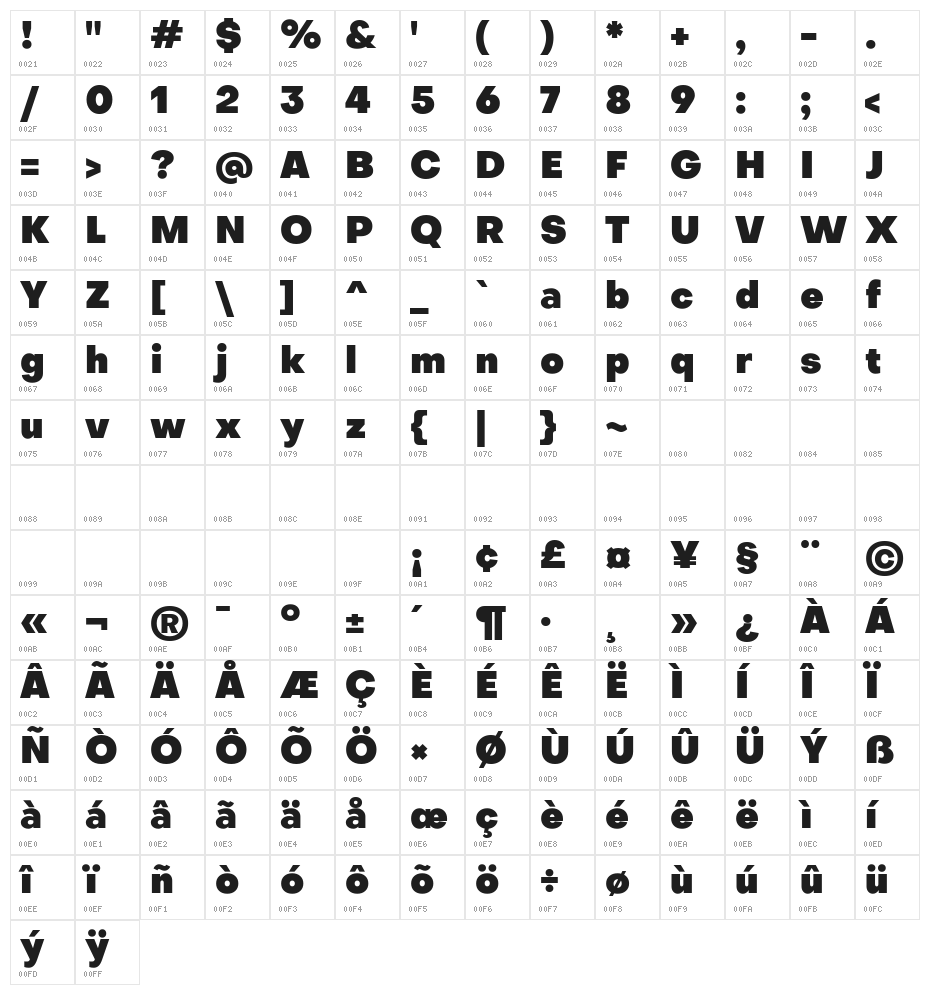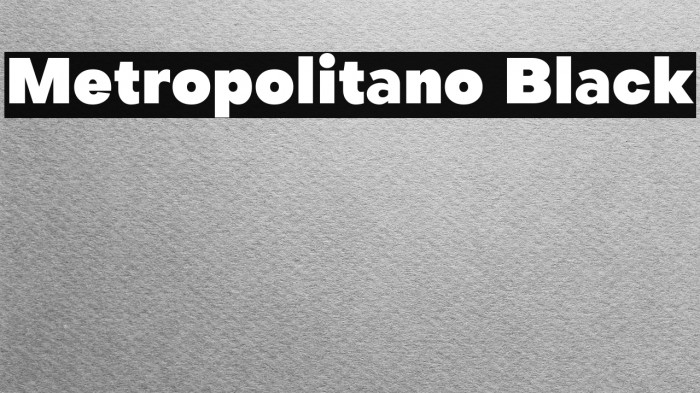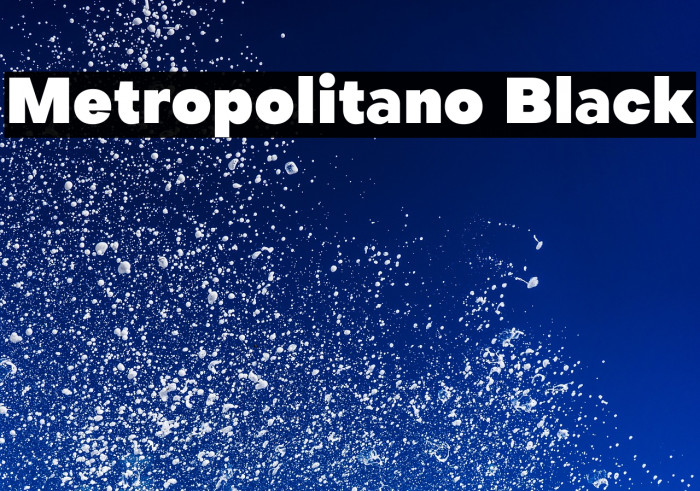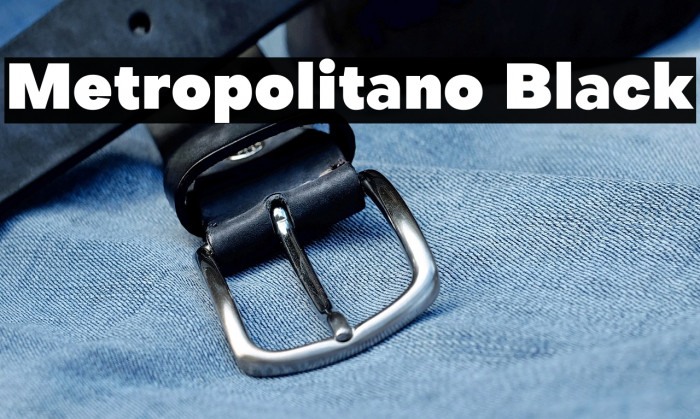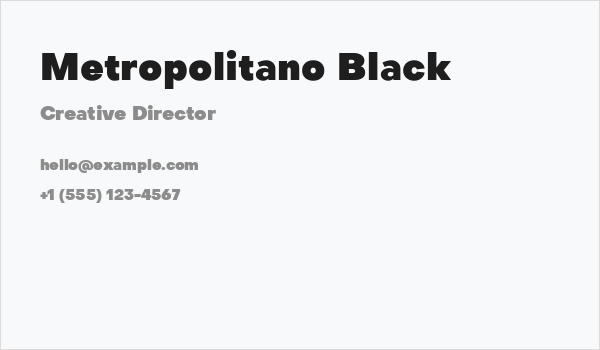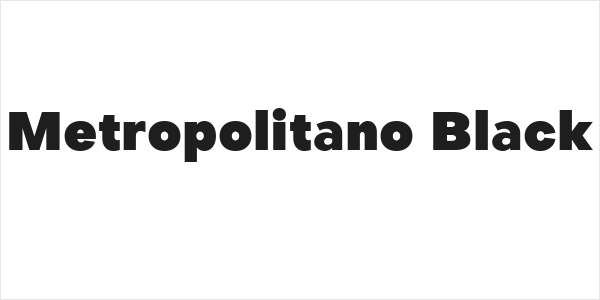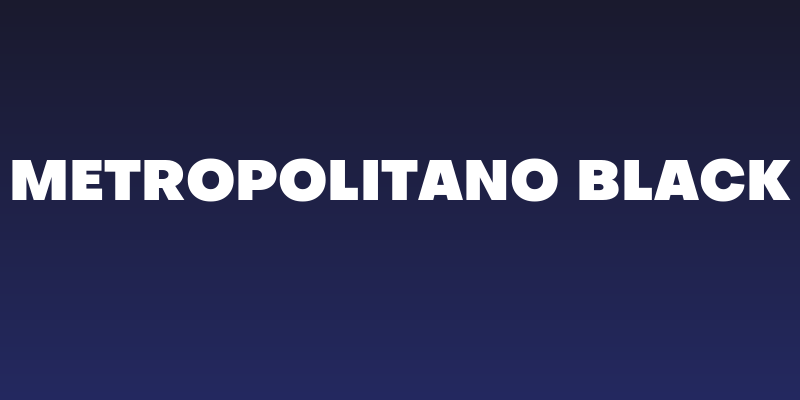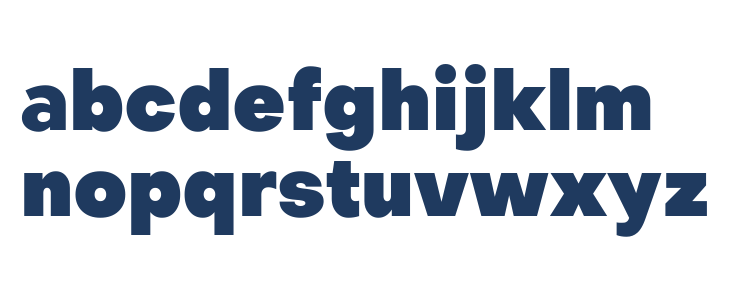
Metropolitano Black Font
Metropolitano Black Description
This typeface exhibits a bold and commanding presence, characterized by its thick, uniform strokes and strong geometric shapes. The uppercase and lowercase letters maintain a consistent weight, contributing to a cohesive and impactful appearance. The numerals and special characters are equally robust, ensuring readability and emphasis. Its design is modern and straightforward, making it suitable for a variety of applications where clarity and strength are essential.
| Proposed Projects | Ideal for branding, advertising, headlines, posters, and any project requiring a bold statement. |